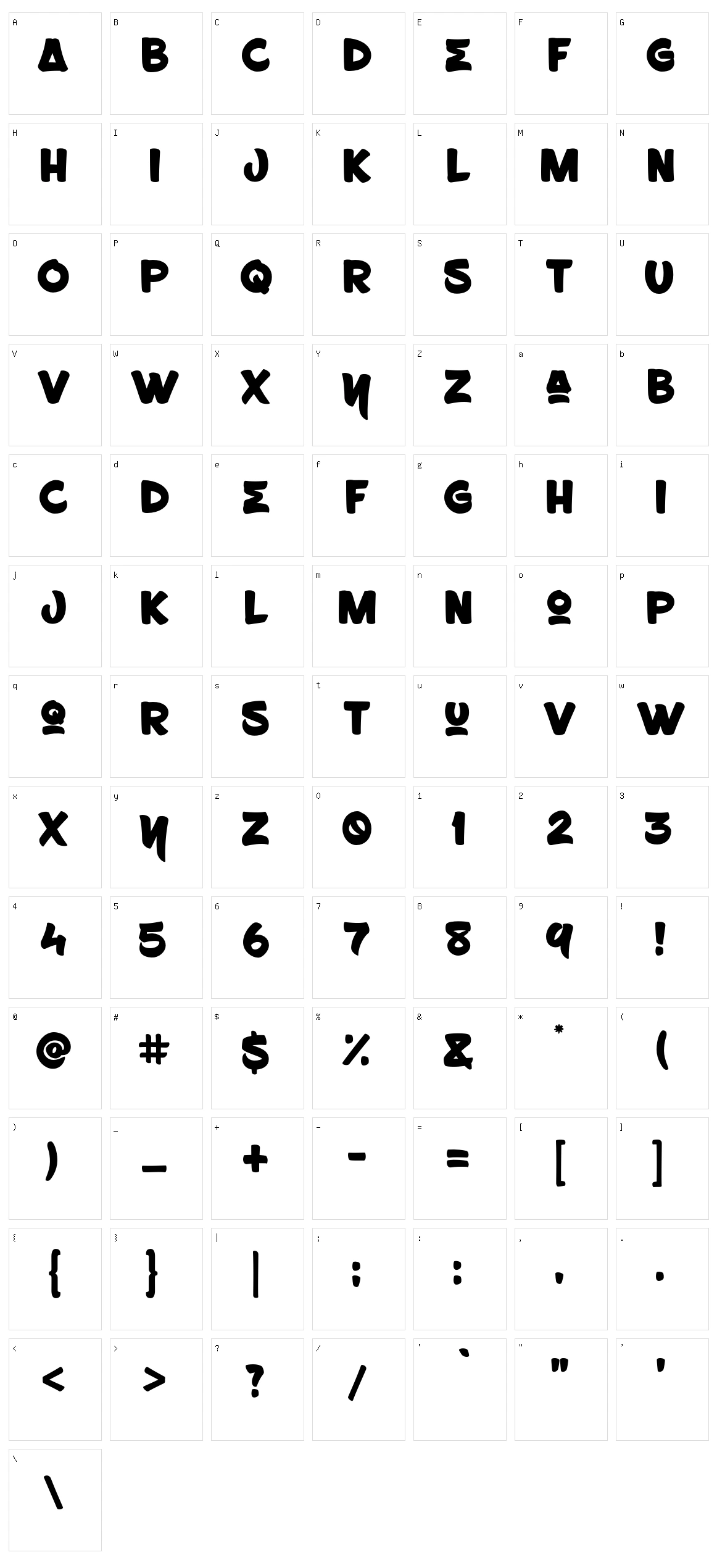
The free font Brushboy is carefully designed by Petar Acanski, showcasing a thoughtful balance of creativity and usability and falls under the Script font style. When you download the ZIP file, it contains only 32.02 KB of font files, making it lightweight and quick to download. Please review the license details below to understand permitted usage and distribution rights. If license information is not available, we recommend using this font for personal projects only or contacting the author directly for commercial usage permissions.